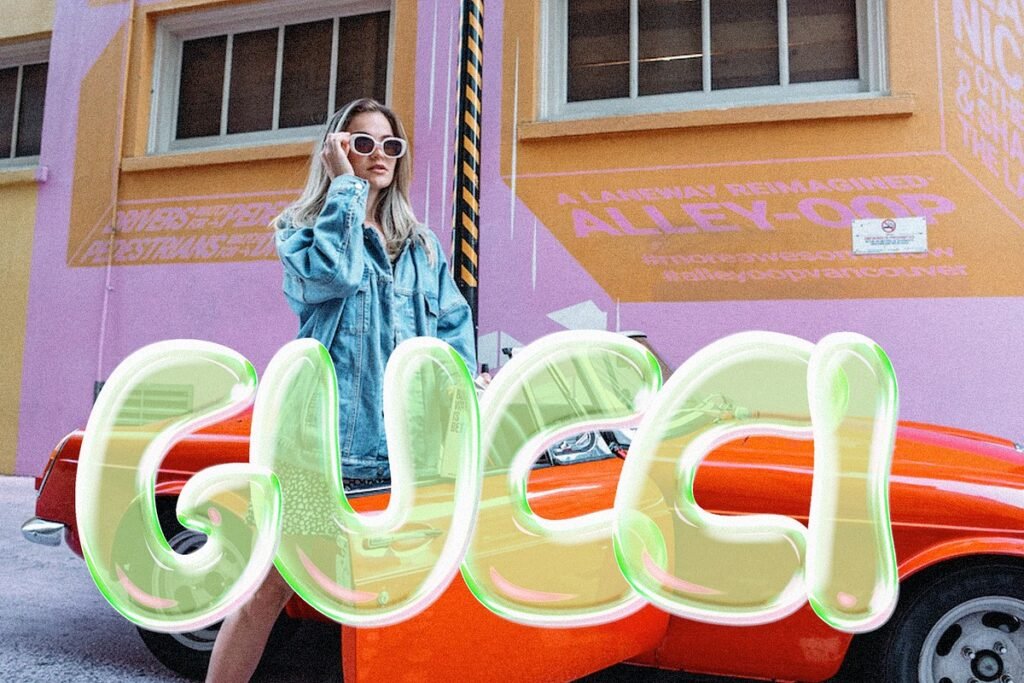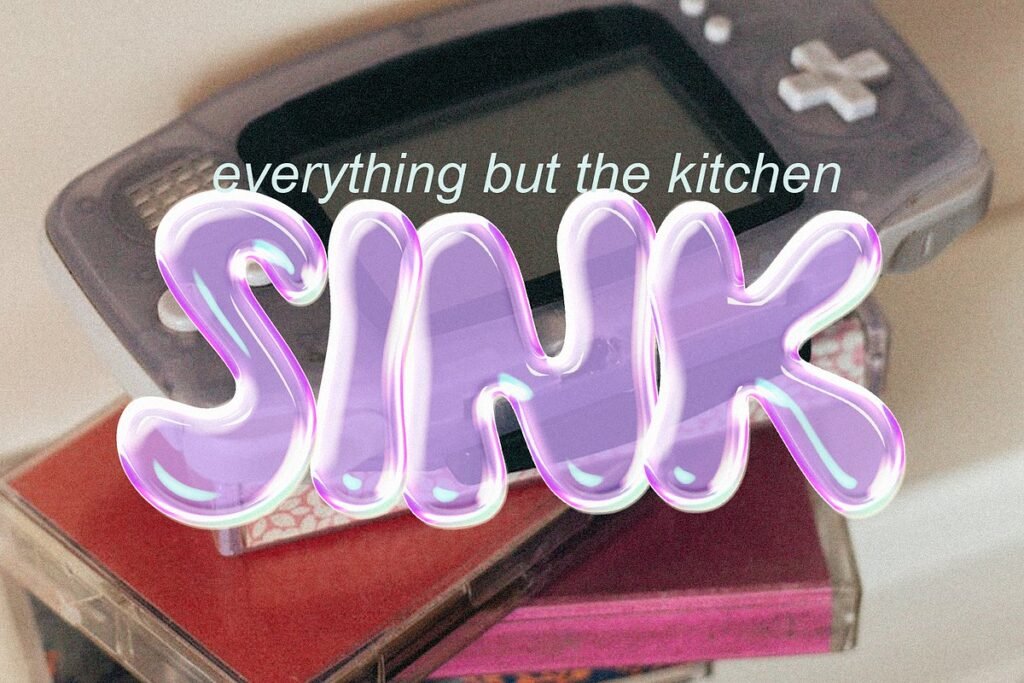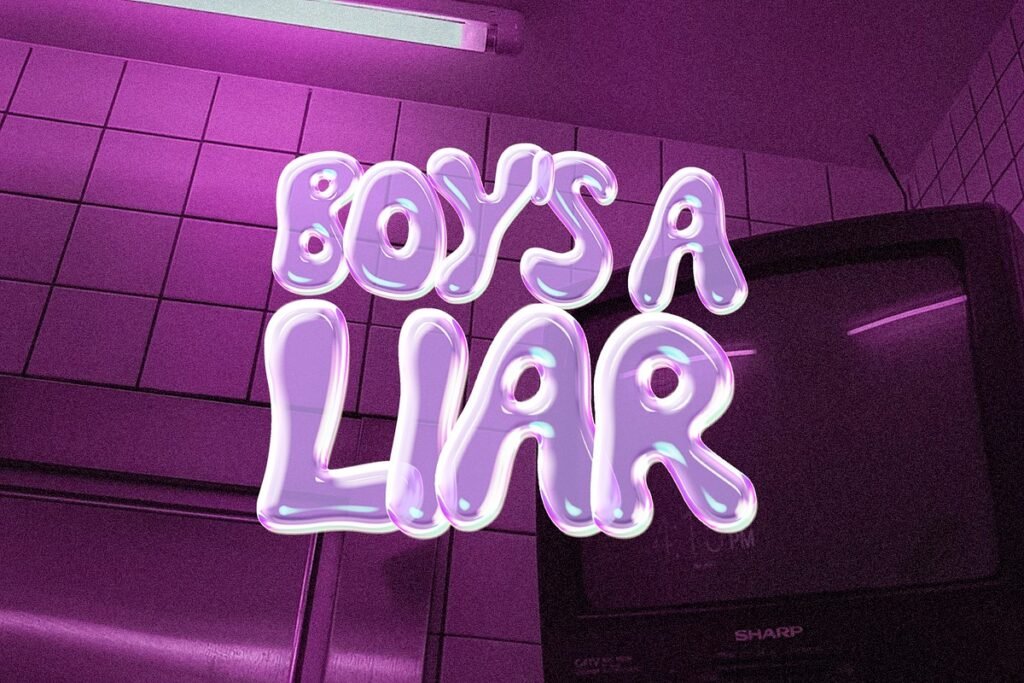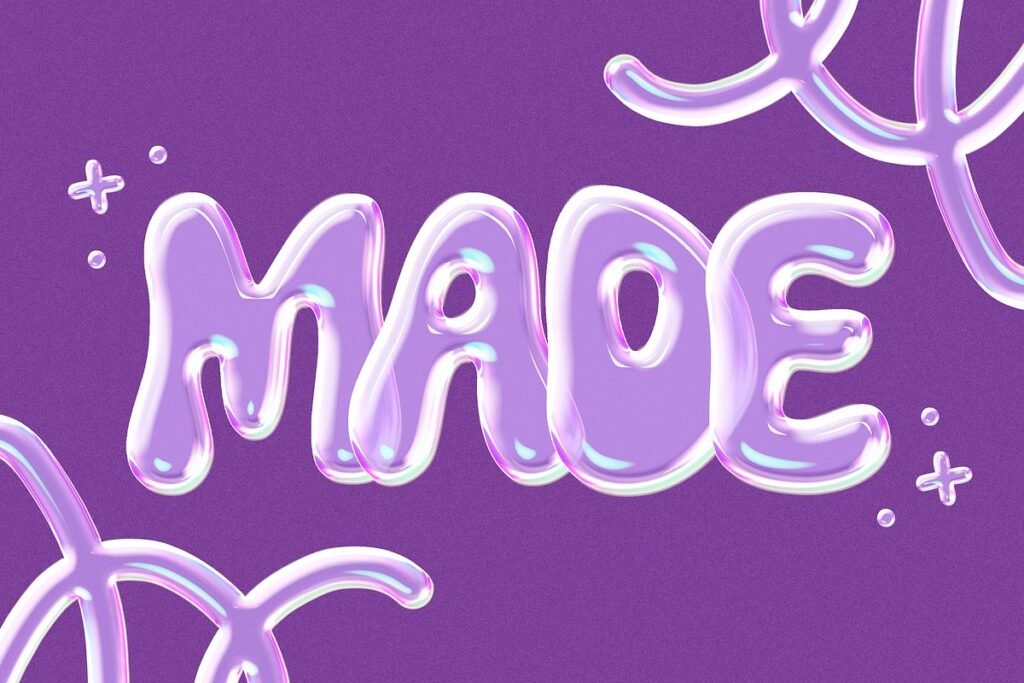
This 3D bubble let set will make your designs truly stand out! If you grew up in the 90s, make sure to take a look through the preview pictures and take a trip back in time.
- Basic standard font – The Good Days
Individual PNG Files included for A-Z, 0-9, basic symbols, and extras. I prefer working with the PNG Files. This will allow you to easily size and manipulate each letter to your liking. Sizes vary due to letter shape – to keep the texture letter size is approx 800×1000.
There is only one color included – that is what you see in the main image. If you would like to change the color of the letters, you will need to do so on your own in your design program. You can easily do this in photoshop and illustrator by adjusting the hue/saturation of your text layer.
These letters were created from my original font – The Good Days. I’ve included that font in this download for you.